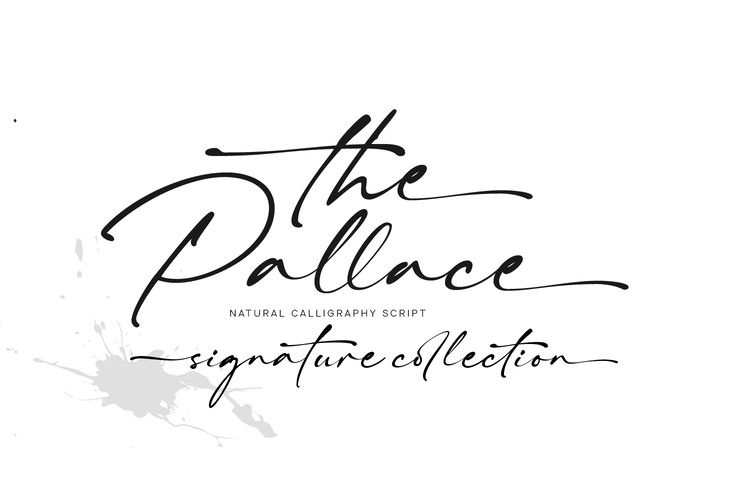
The Pallace
The Pallace feels equally charming and elegant. This stunning handwritten font is a stylish homage to modern calligraphy. It features a varying baseline, smooth lines, gorgeous glyphs and stunning alternates.
Fall in love with its incredibly versatile style and use it to create gorgeous wedding invitations, beautiful stationary art, eye-catching social media posts, and much more!